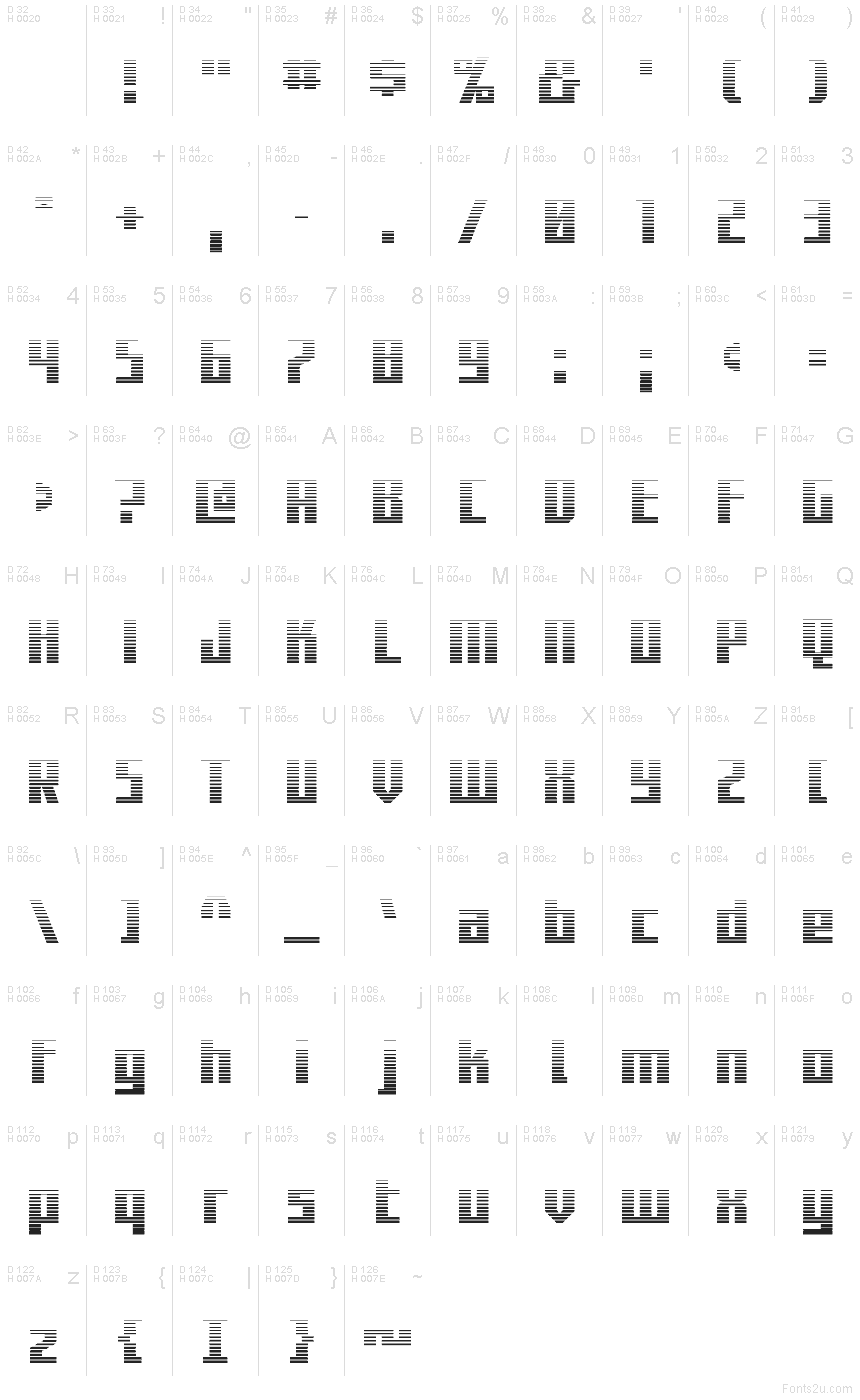
Capitol City Gradient Straight
Capitol City Gradient Straight font by Iconian Fonts is a techno display font with a bold and condensed appearance. Striking, within its modern structure can be noticed futuristic geometric elements that fit seamlessly within creative ideas. Characters are slightly experimental while remaining neat, an approach that gives the typeface a technological feel without lacking professionalism.